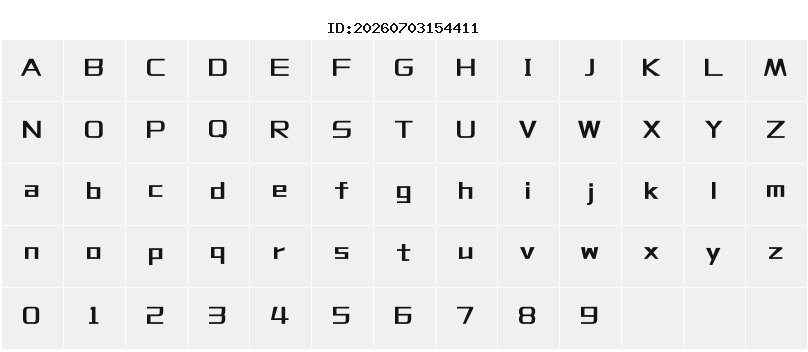
007-上首京东体 Preview
• Font Name: 007-上首京东体
• Full Font Name: 007-上首京东体
About 007-上首京东体.ttf
007-上首京东体.ttf is a modern, elegant sans-serif font designed for ultimate readability and visual harmony. Perfect for branding, headlines, web design, and print materials.